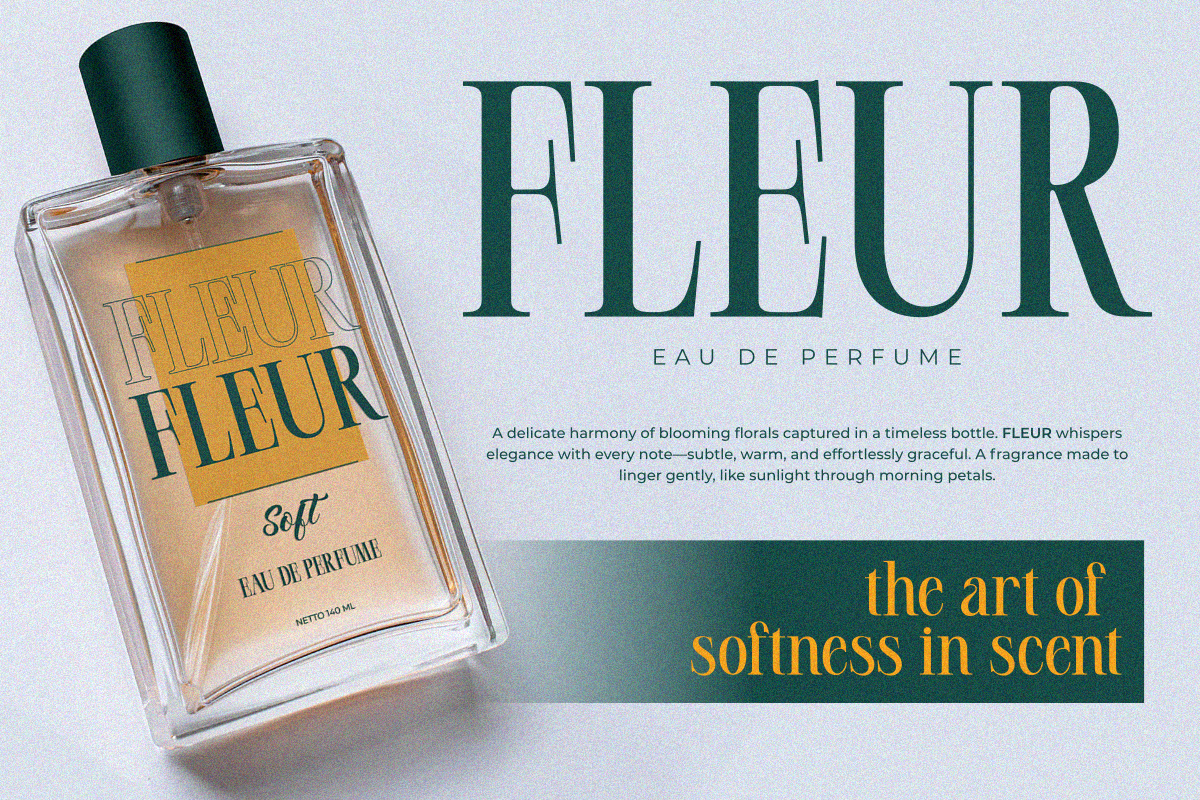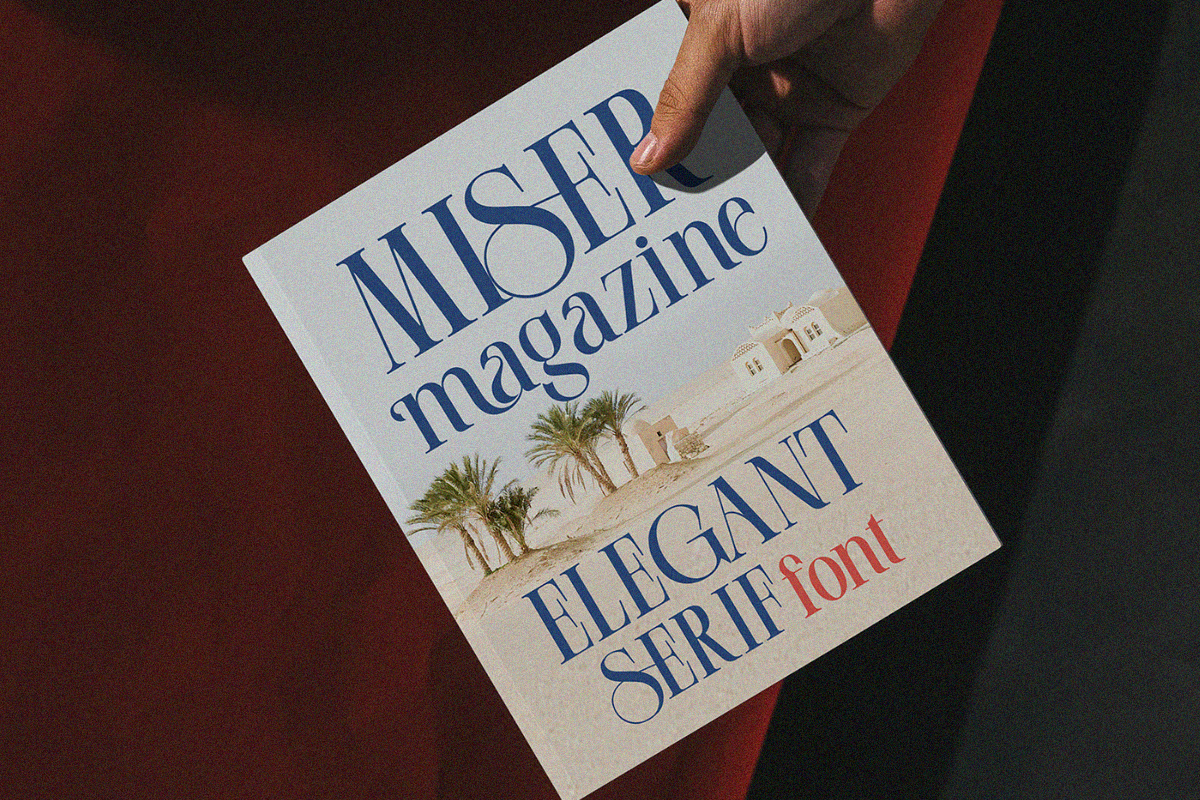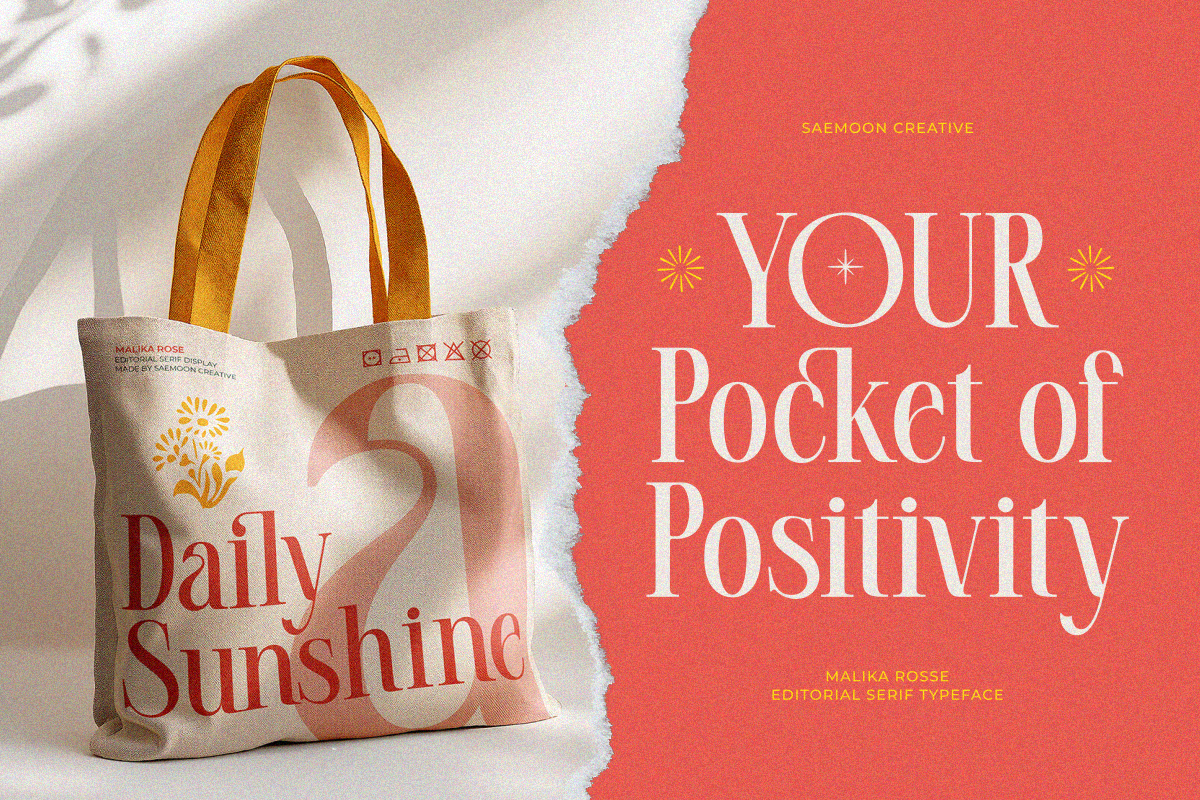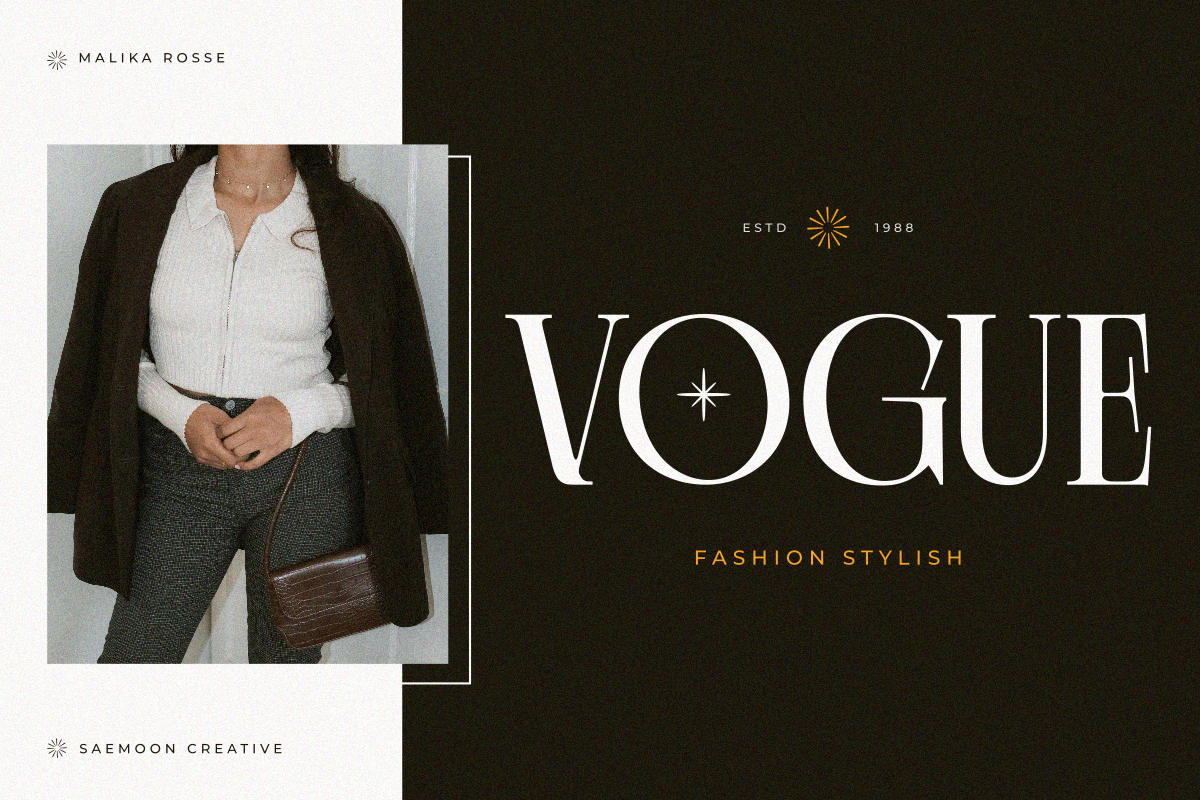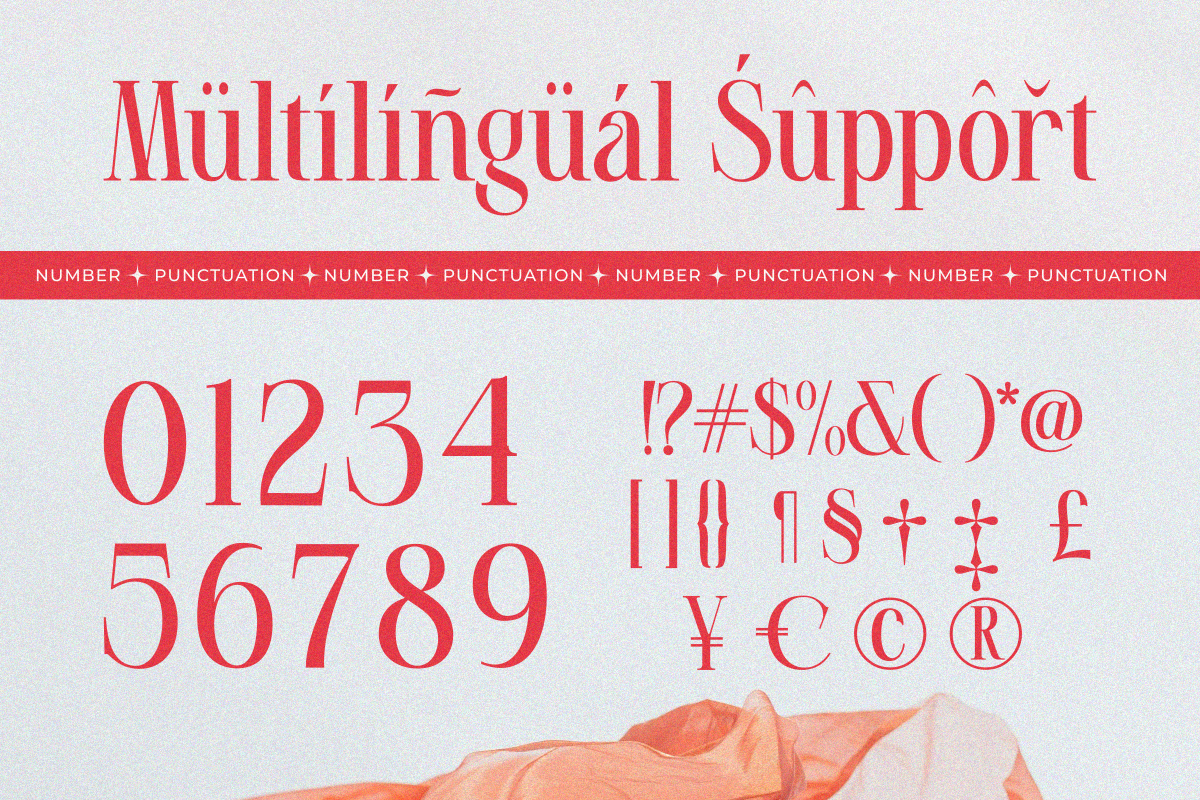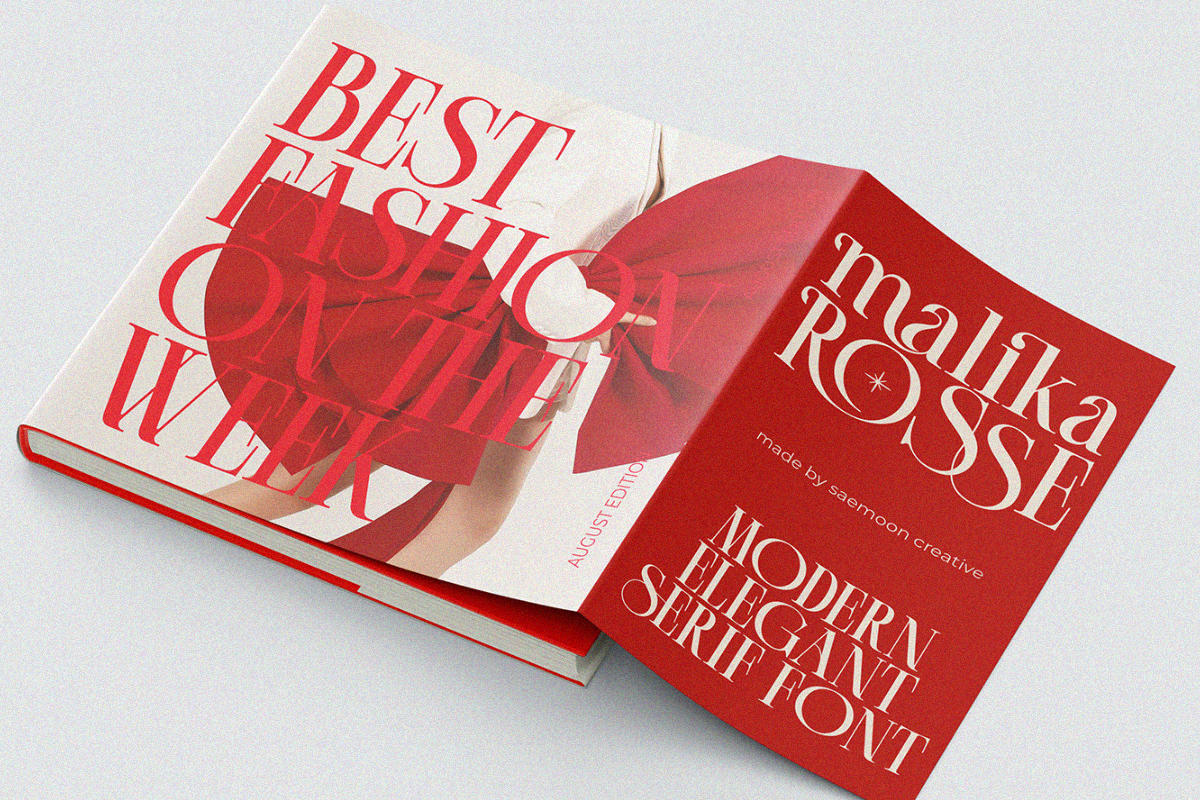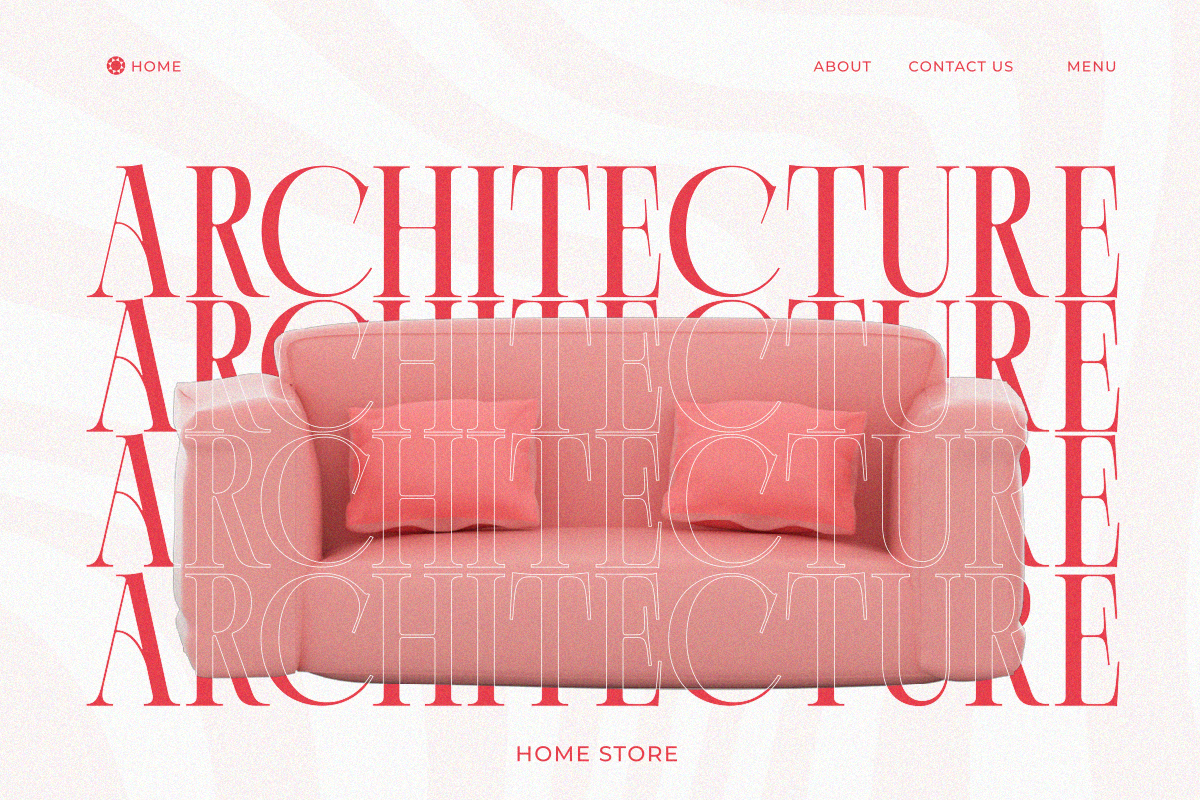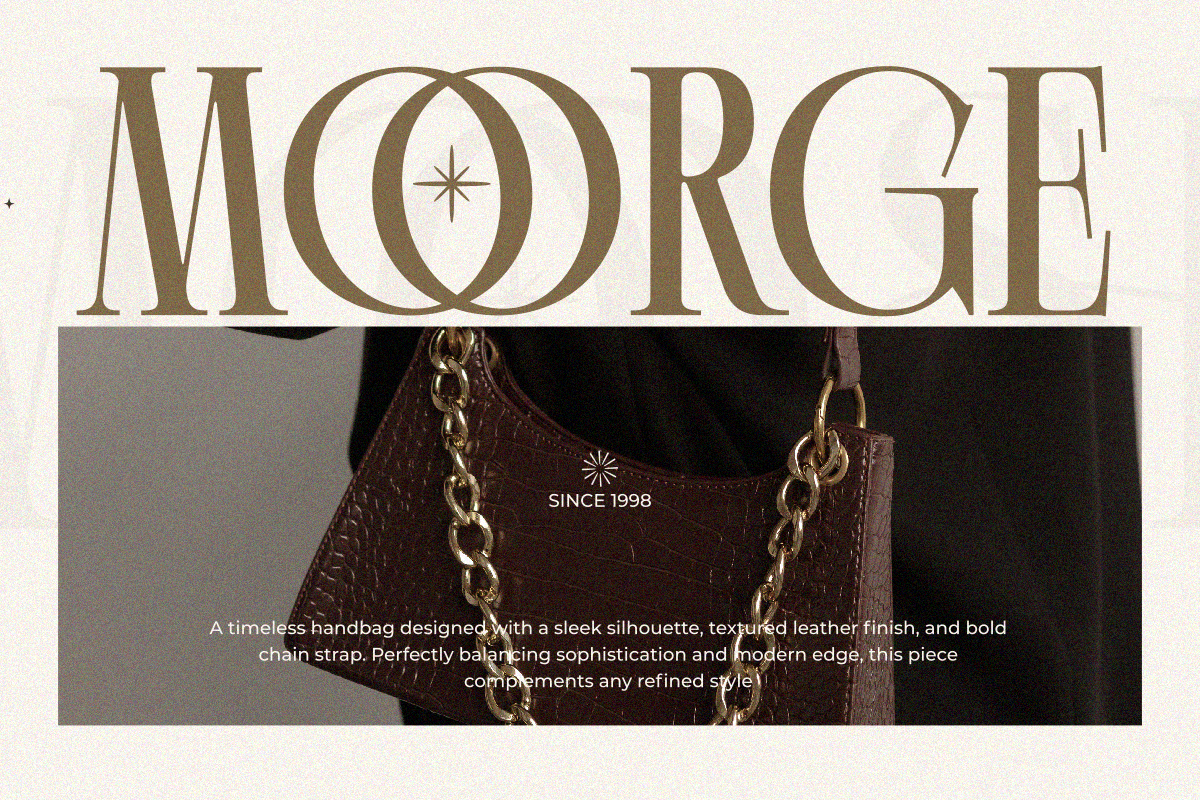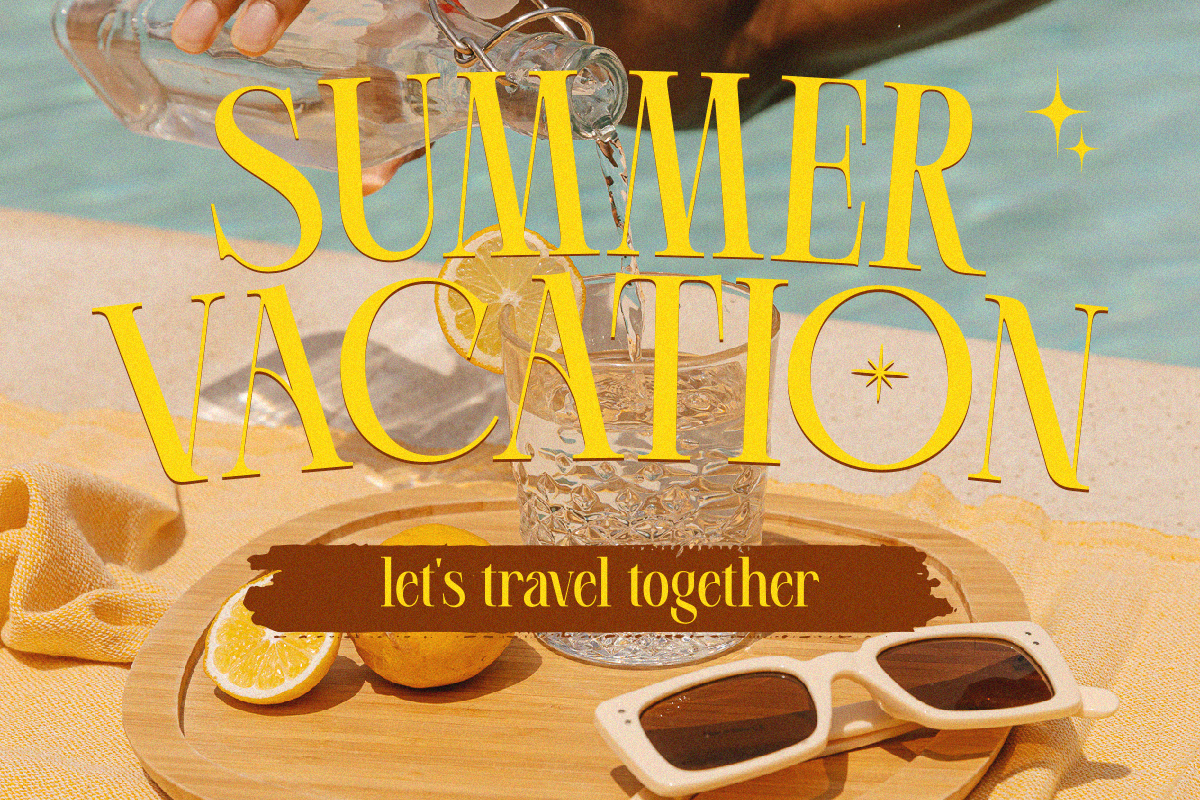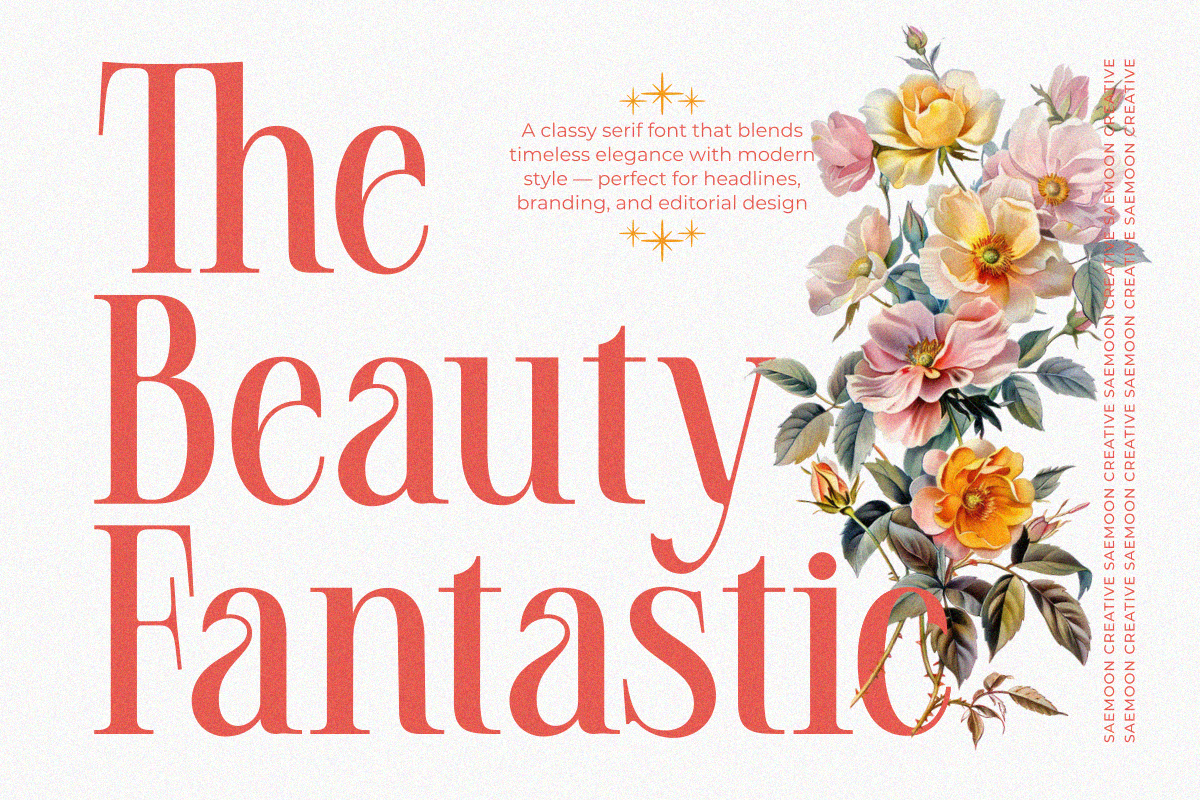
Malika Rosse
Malika Rosse – Modern Classy Serif Typeface
Malika Rosse is a modern serif typeface that blends timeless classic touches with contemporary elegance. Designed with precision details, this font delivers a sense of sophistication, luxury, and character, making it a perfect choice for a wide range of design needs.
It is ideal for headlines, branding, editorial layouts, posters, packaging, and logos that require an exclusive and refined look.
Includes: Packed with a complete character set to support your creativity, featuring:
Elegant Uppercase & Lowercase
Versatile Numbers & Punctuation
Stylistic Alternates for design variations
Exclusive Ligatures for a distinctive touch
Multilingual Support to reach a global audience